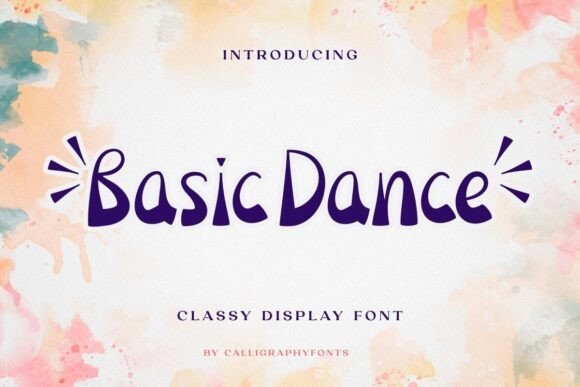
Introduction to Basic Dance Font
Basic Dance is a childish, easy-to-read display font that conveys impeccable friendliness.
Key Features of Basic Dance Font